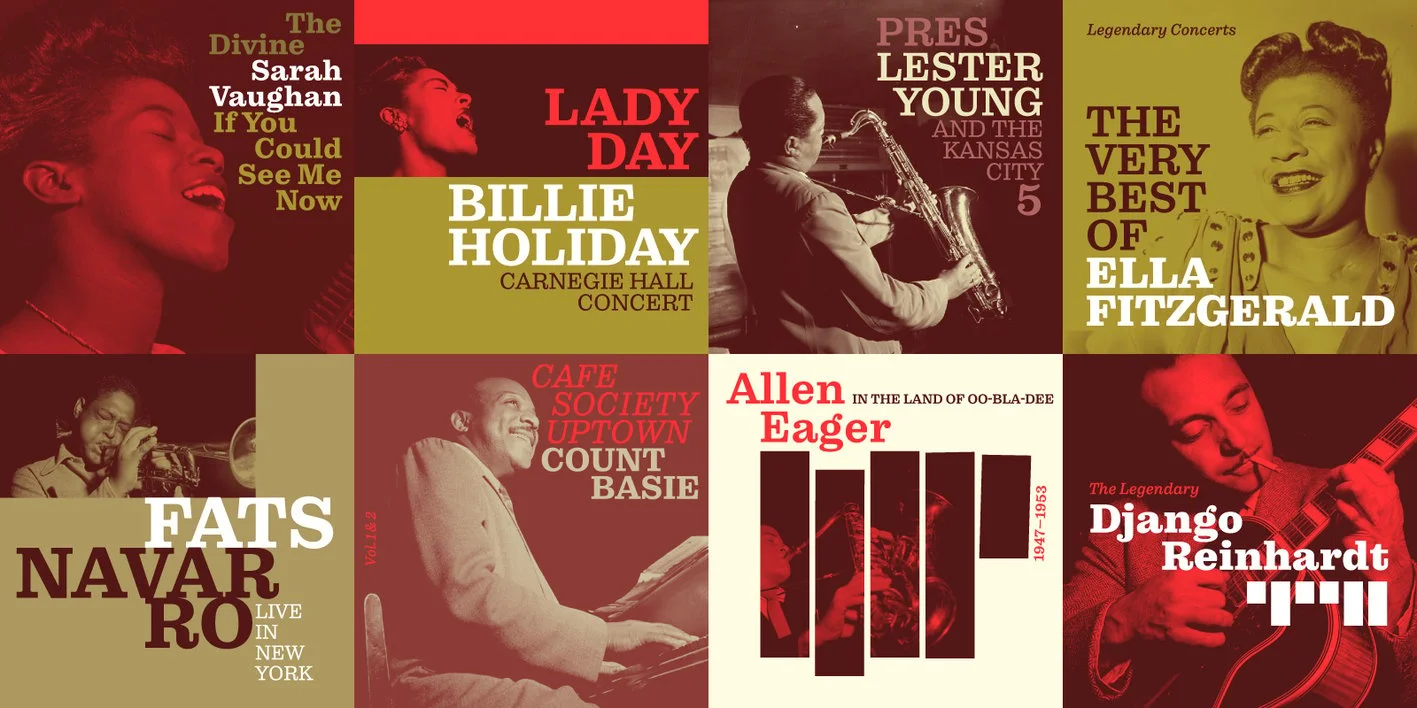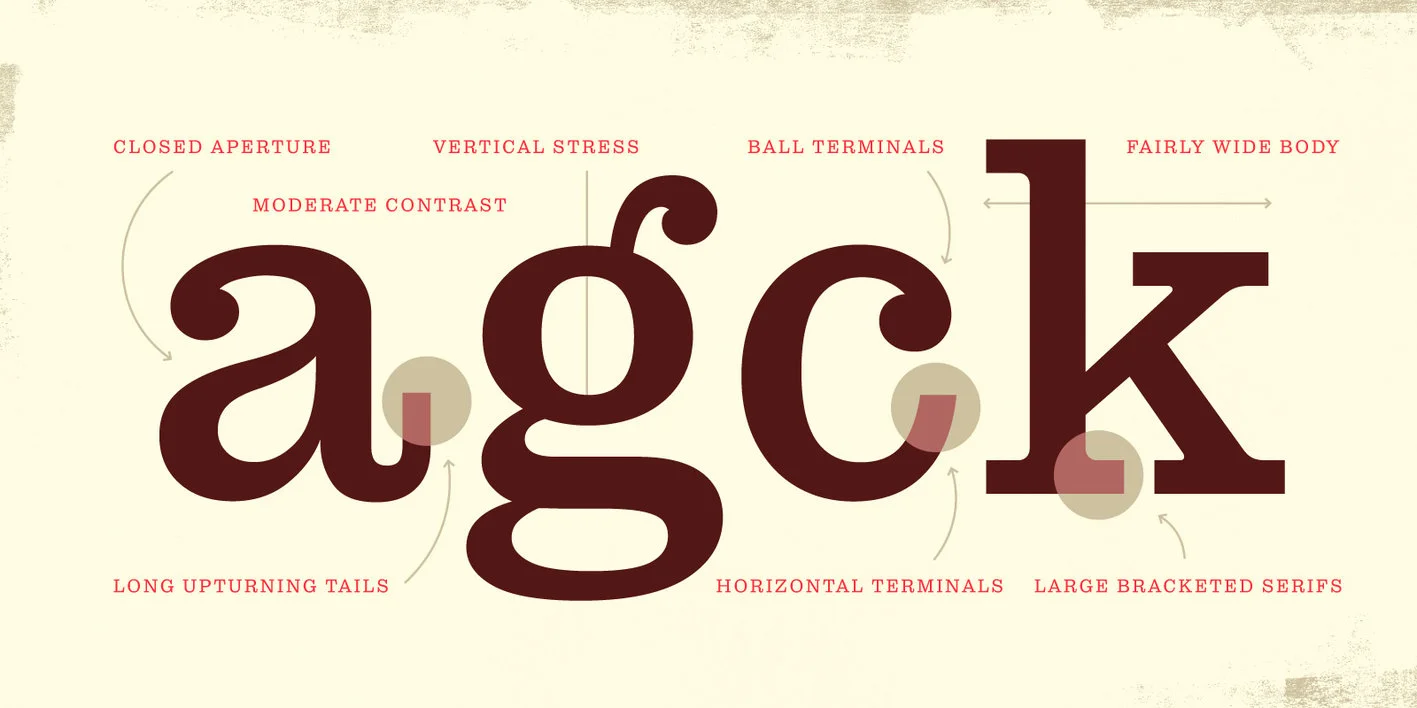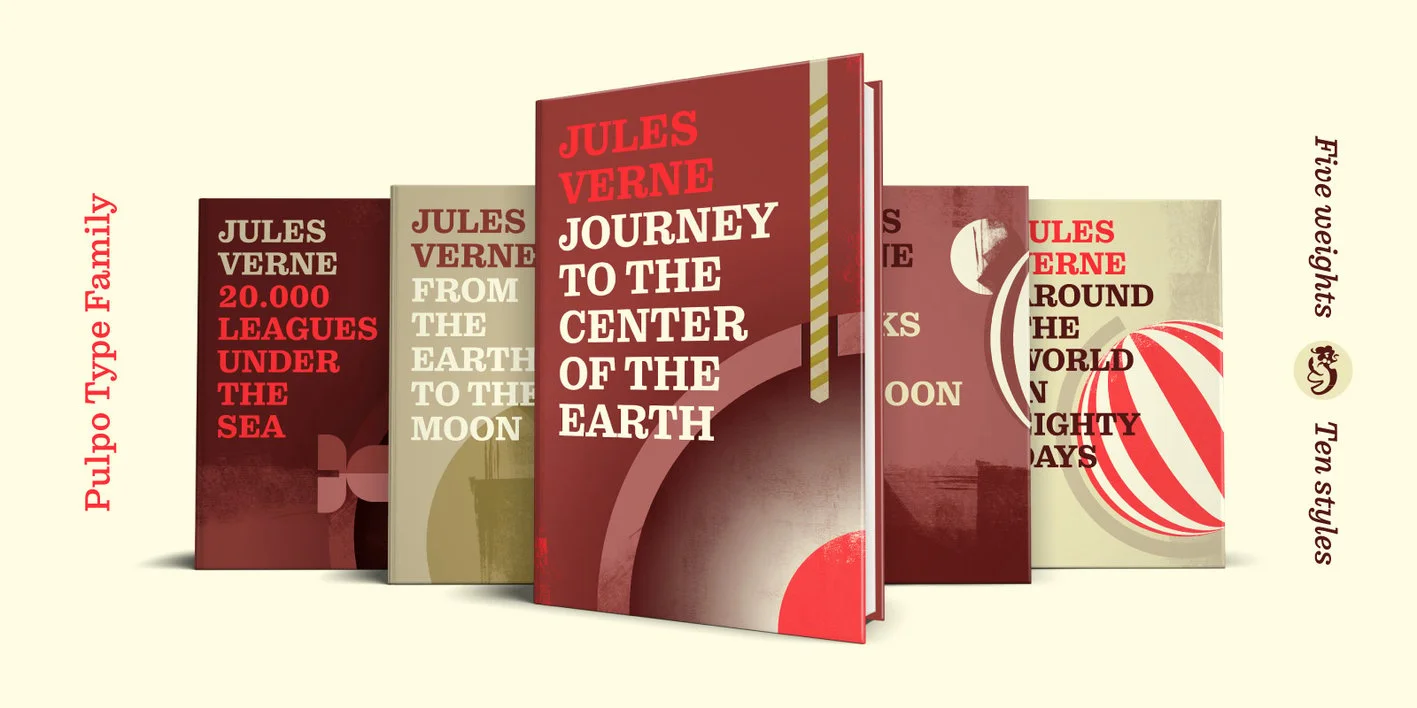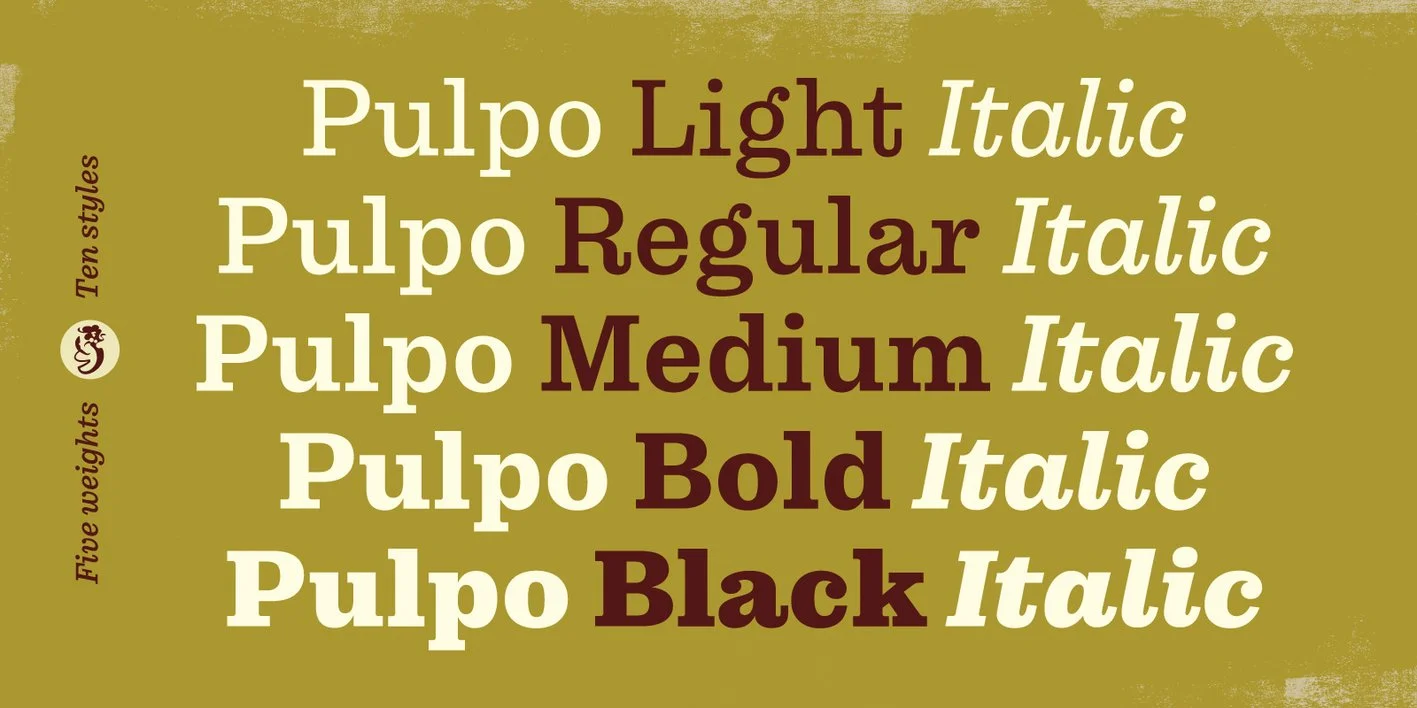
Pulpo Font
When a design brief calls for both visual harmony and precise spacing and immediate visual impact, type choices matter — Pulpo answers that brief. The typeface brings a versatile sensibility to a broad range of creative disciplines, with a confident voice that adapts to diverse briefs that holds up whether the work is print-first or screen-first.
In practice, Pulpo proves particularly effective for editorial layouts, advertising campaigns, signage systems, logo design, web design. Designers reaching for it find that the type decisions feel resolved rather than laboured — a useful quality when client timelines are tight.
The range of applications extends to packaging design, product labels, annual reports, poster creation. That breadth is deliberate: the proportions and spacing were stress-tested across a wide range of mock briefs before the typeface was finalised.
The proportions balance x-height, cap height, and ascender length to produce a face that reads confidently at body copy sizes without losing presence at display scale. Sidebearings were derived from visual rhythm testing rather than mathematical calculation alone.
Pairing Pulpo with a contrasting serif or a neutral grotesque gives mixed-format layouts a clear visual grammar without requiring constant size adjustments to establish hierarchy.
Independent studios handling packaging and editorial work find Pulpo a reliable choice for projects that demand both personality and restraint. The design avoids the self-conscious quirkiness that dates quickly, settling instead for considered distinctiveness that holds up over time.